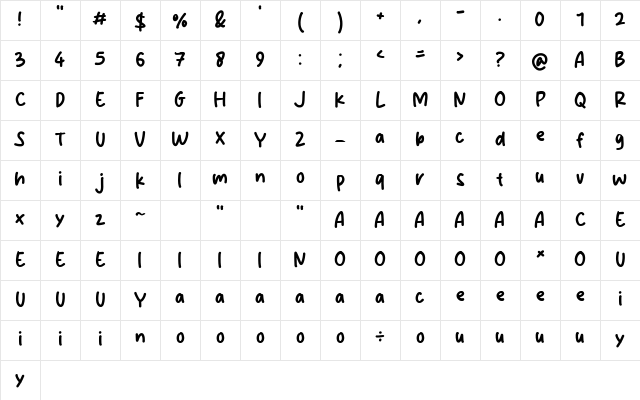
Complete Cheese Cake Regular glyph index. Displaying only characters natively supported by Cheese Cake Regular font.
Cheese Cake is a composed and adaptable typeface that performs quietly and consistently across a wide range of design contexts.